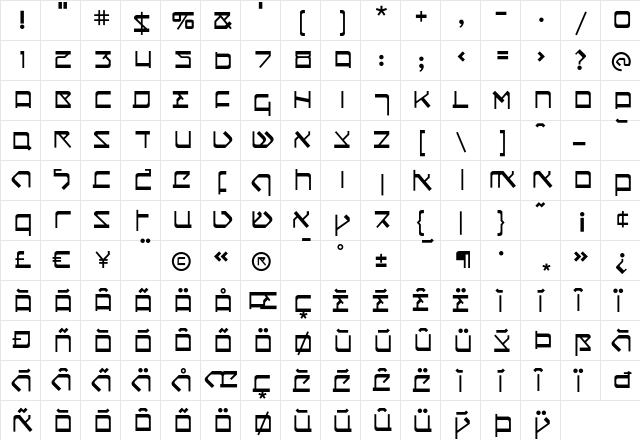
Circumcision Sans
| Style | Sans |
Design Context for Circumcision Typeface
Circumcision is a composed and adaptable typeface that performs quietly and consistently across a wide range of design contexts.